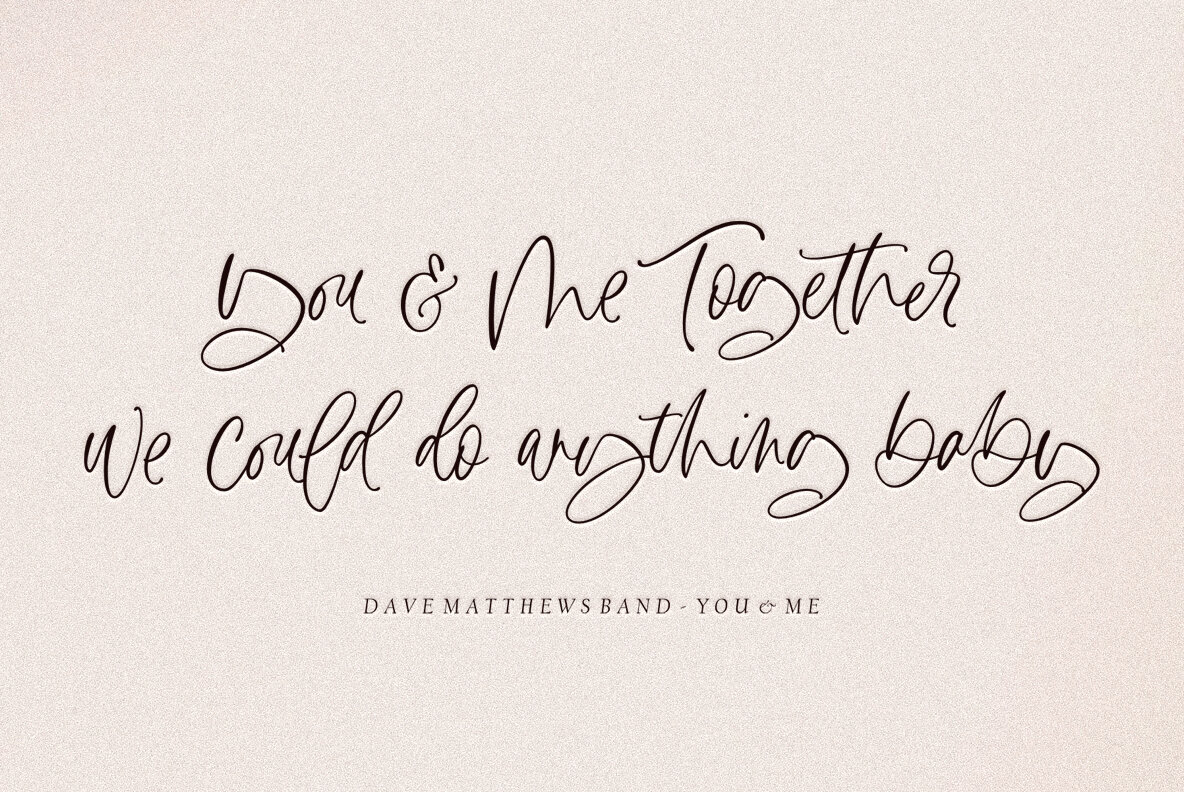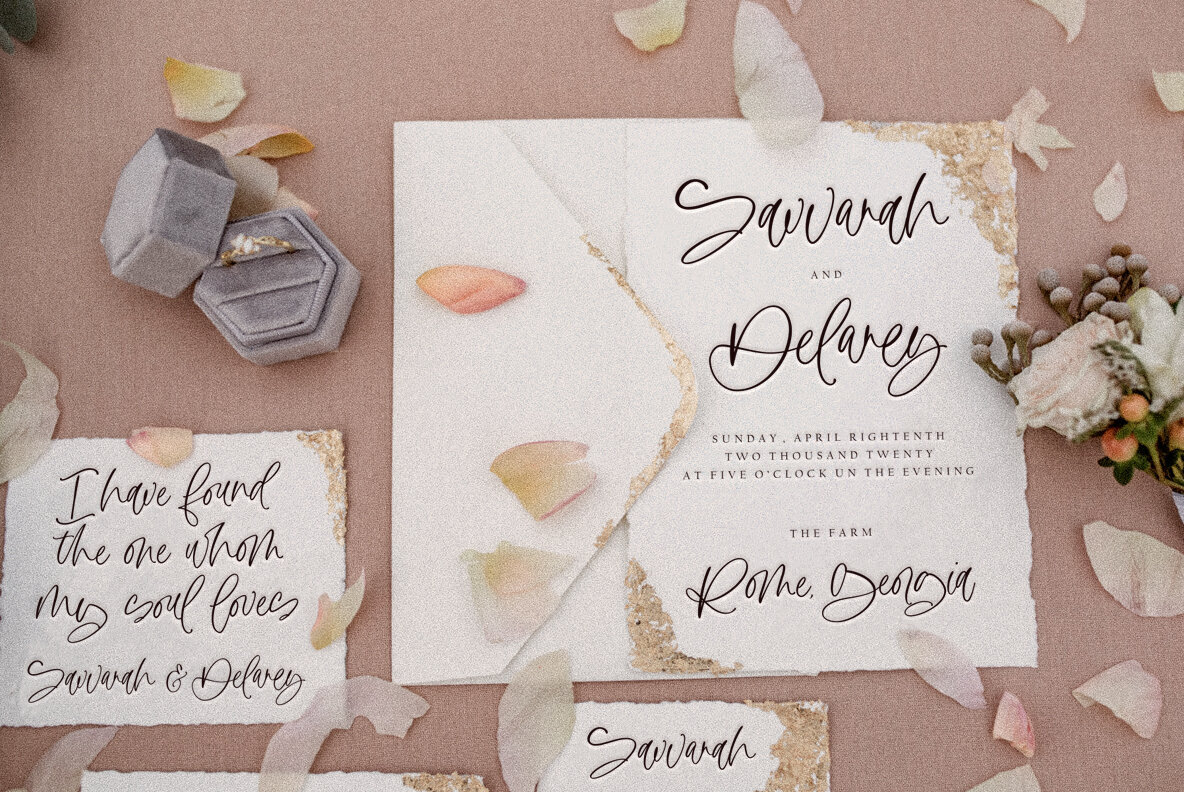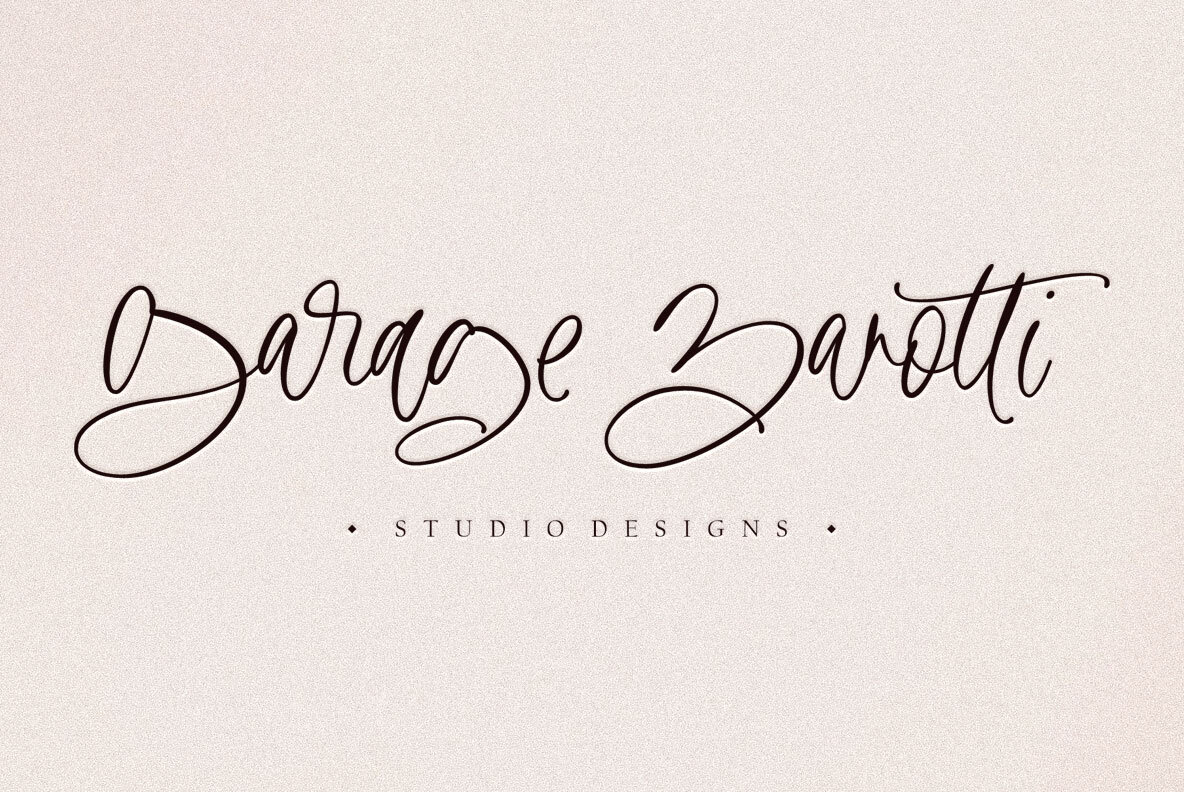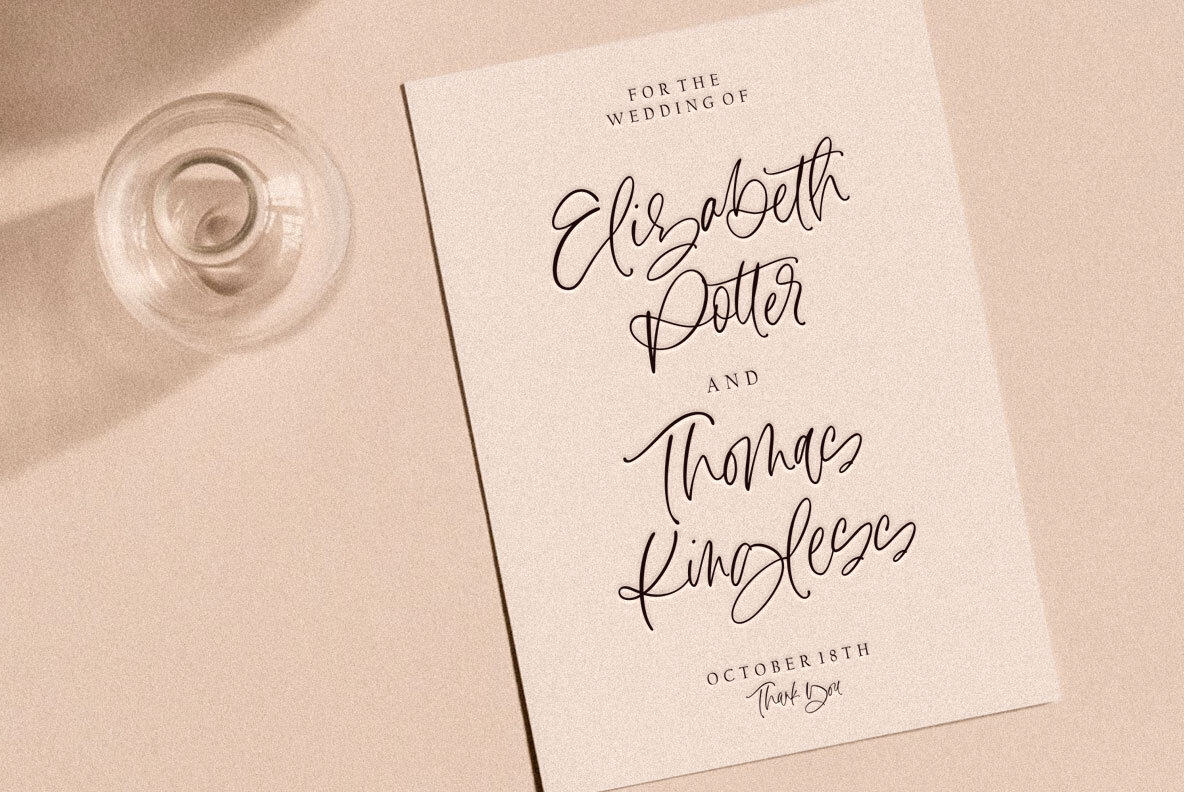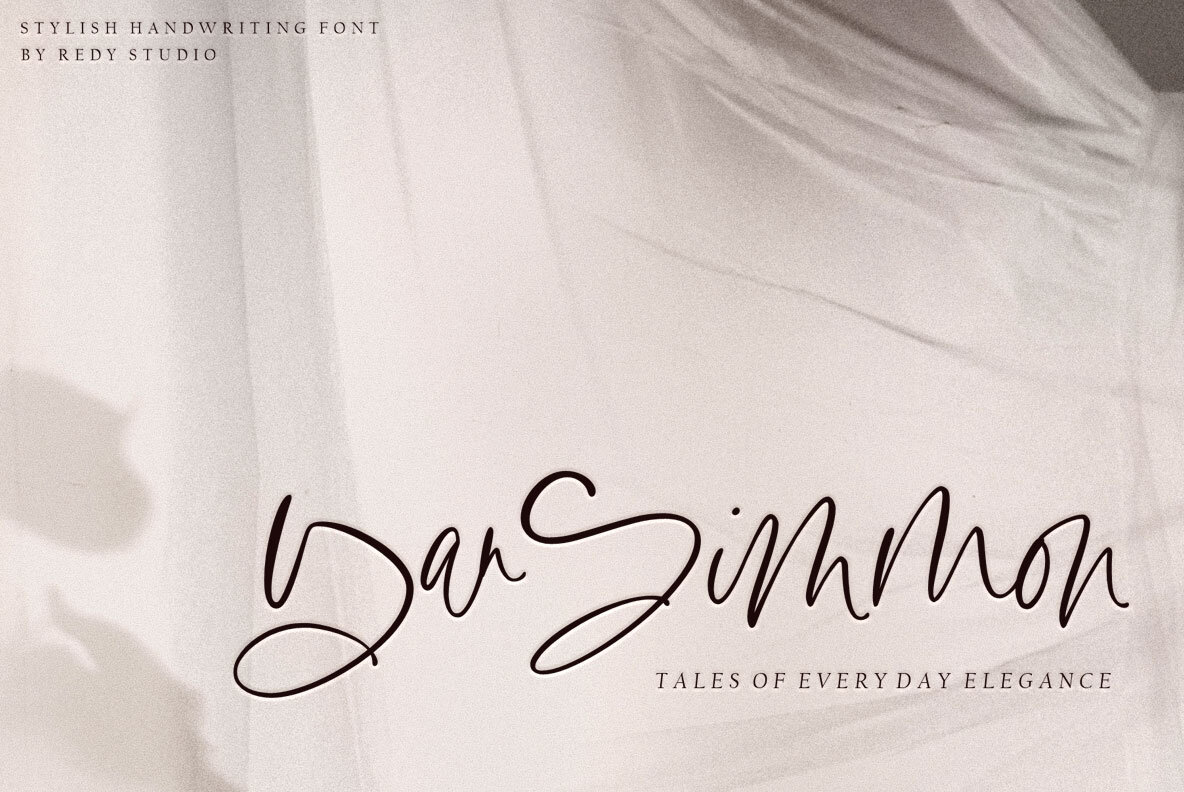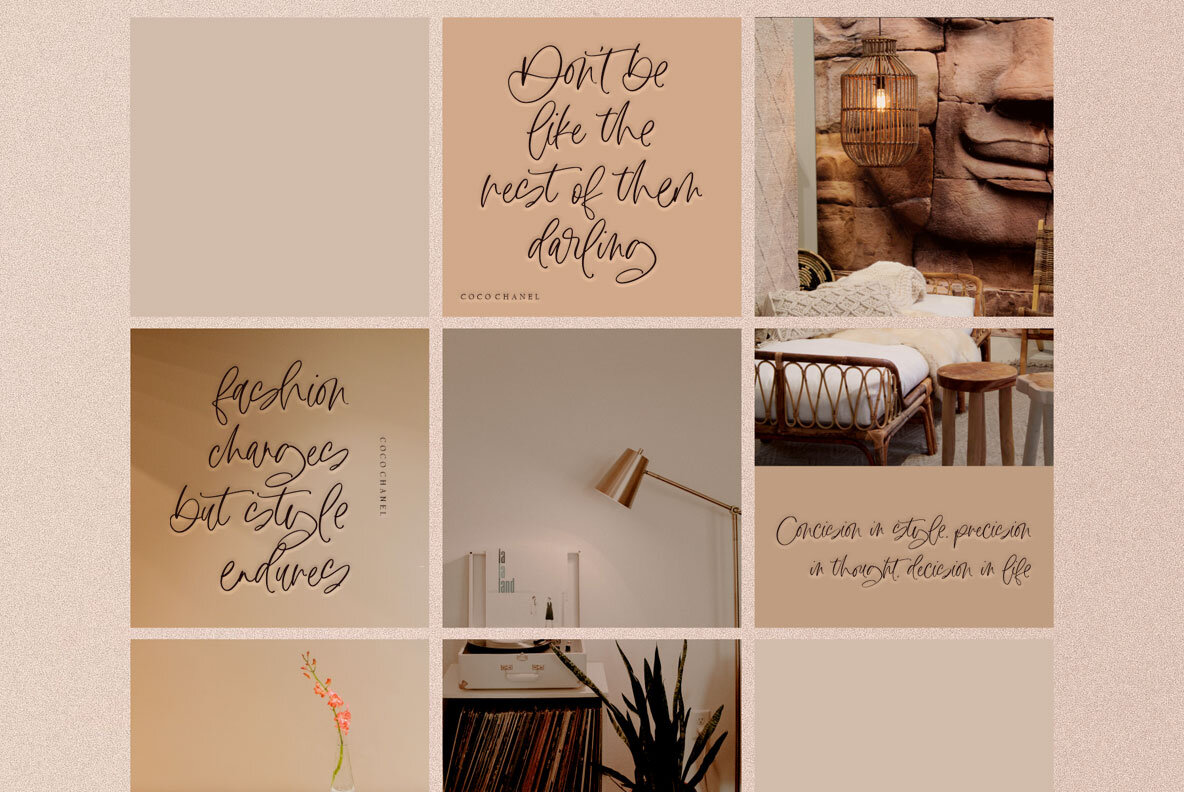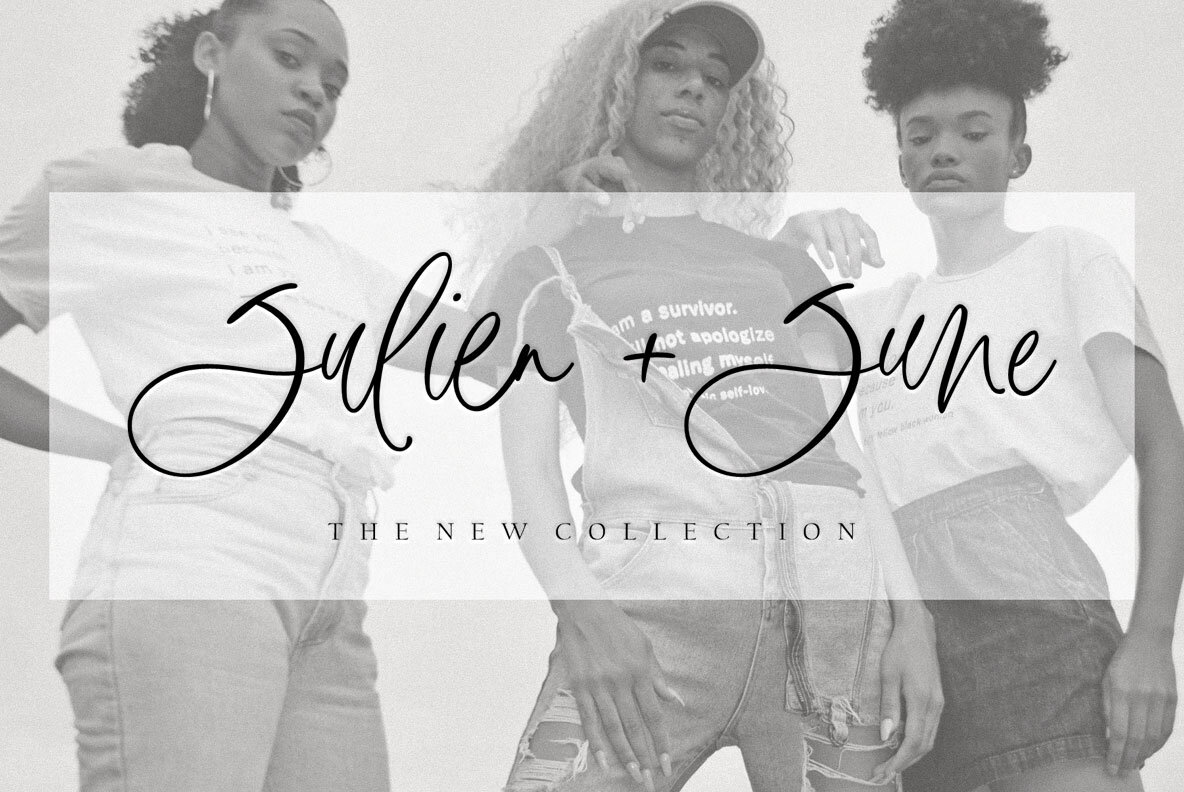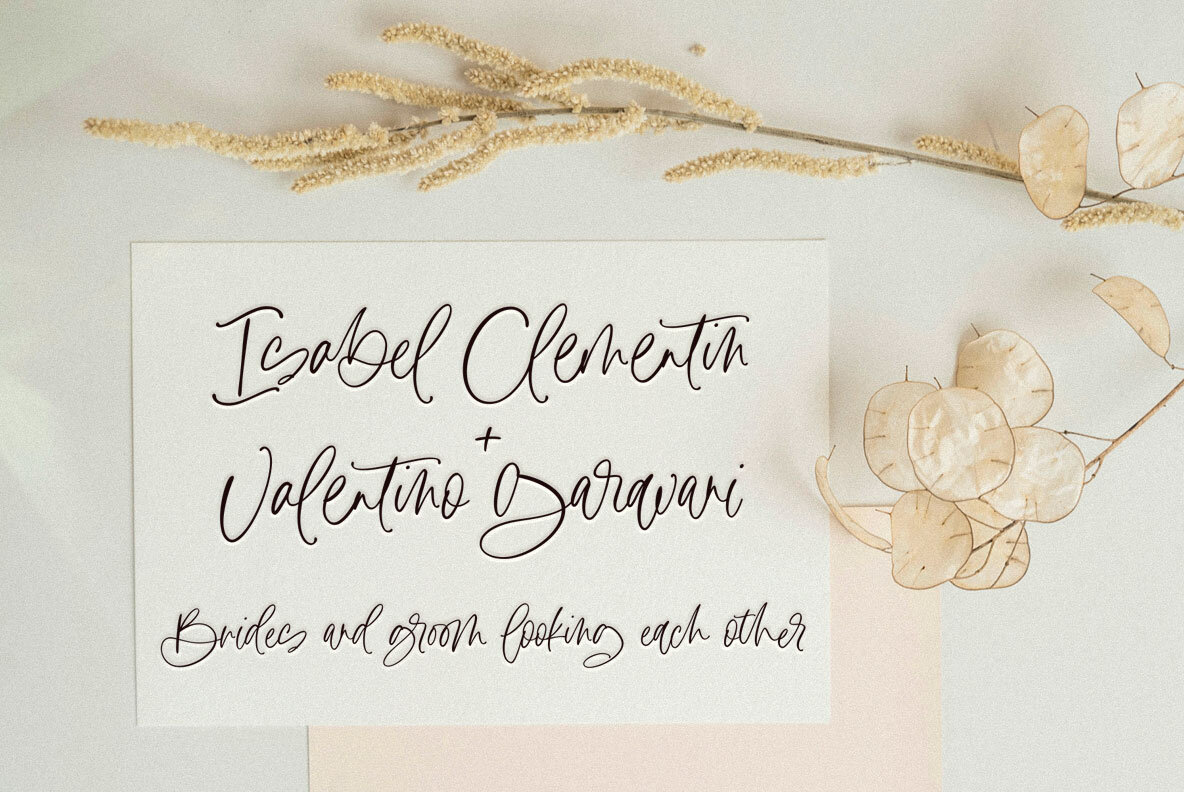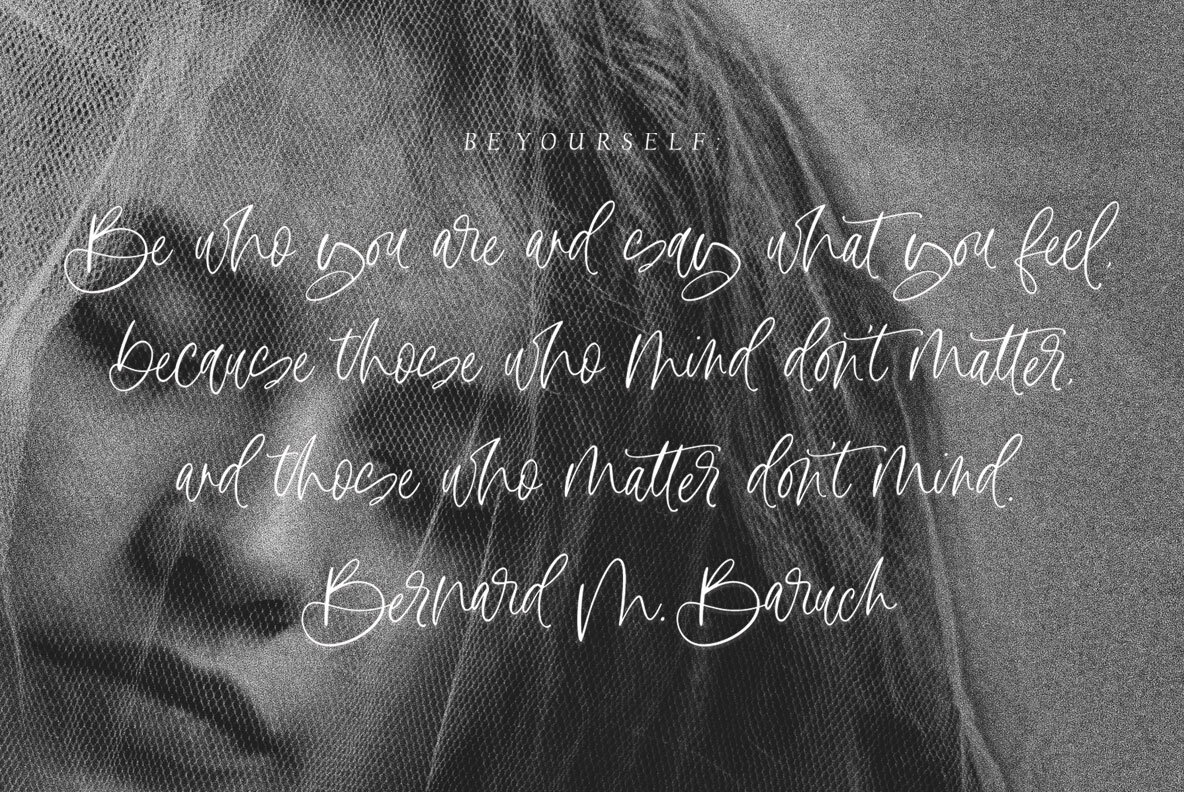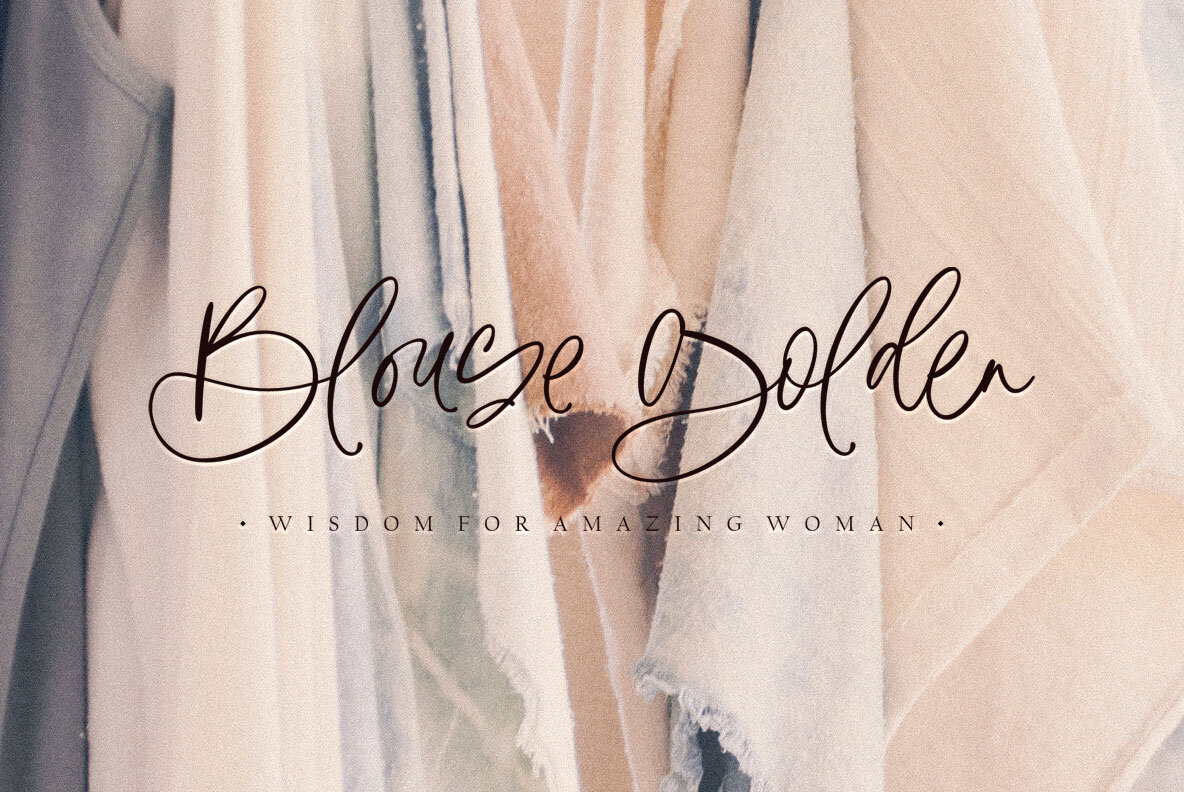
Diary Writing Font
Aimed at the discerning designer and blogger, Diary Writing font offers a refreshing addition to the world of typography. This exquisite modern calligraphy font, crafted entirely by hand, features a rich variety of letter characters, numerals, and symbols, complete with an extensive range of punctuation. The varying stroke thickness draws inspiration from themes of love and passion, making it an ideal choice for wedding invitations, formal events, and evocative quotes.Diary Writing: Modern Calligraphy with Elegance
Its sophisticated character lends itself effortlessly to high fashion and luxury branding, premium logos, and editorial designs. Infuse your projects with a sense of charm and energy, ensuring even the most mundane text comes alive.Features